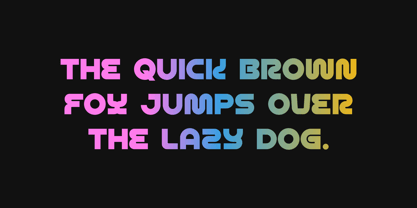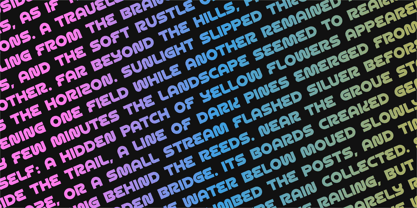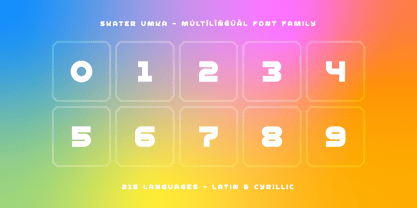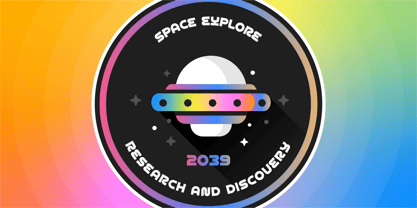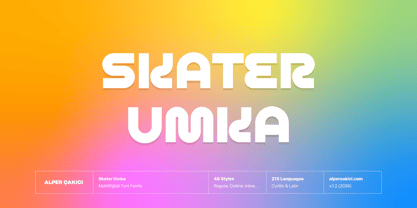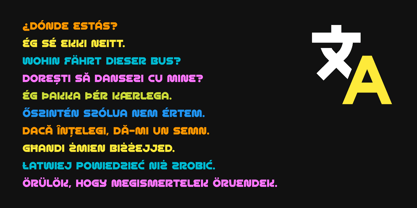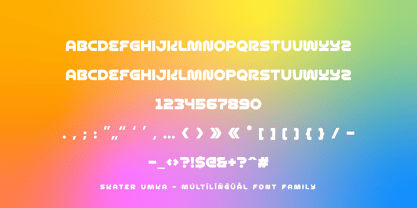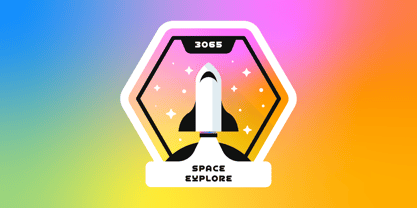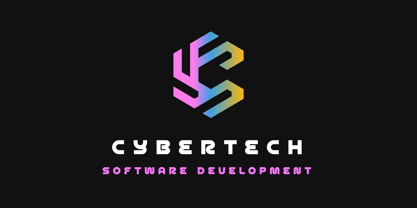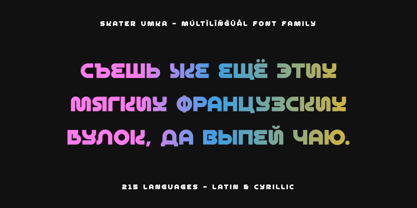
Skater Umka is a geometric maze-inspired display typeface designed to create striking visual pathways within every letterform. Built from interconnected lines, circular structures, and angular turns, it transforms typography into a system of visual movement that feels both futuristic and architectural.
The design explores the relationship between geometry, rhythm, and navigation. Each character is constructed from controlled paths that echo labyrinth patterns, creating a distinctive texture while maintaining strong display readability. The result is a typeface that feels experimental and artistic without sacrificing clarity, making it ideal for branding, posters, editorial headlines, album artwork, packaging, digital media, and contemporary visual identities.
Skater Umka is available in a versatile family of 48 styles that range from clean geometric forms to expressive handcrafted textures. The collection includes Regular, Italic, Inline, Outline, Rimmed, Shadow, Traced, and decorative shadow variants, alongside richly textured styles such as Brush, Pencil, Chalk, Sketchy, Grainy, Gritty, Dry, Rough, Noise, Rusty, Worn, Aged, and Old. Matching italics across many styles provide additional flexibility for dynamic display compositions and branding systems.
Despite its artistic construction, Skater Umka offers extensive language support, covering 215 languages across Latin and Cyrillic writing systems. This broad multilingual coverage makes it suitable for international branding, editorial design, packaging, advertising, and global creative projects.
• 48 font styles
• Geometric maze-inspired display design
• Distinctive labyrinth-like letter construction
• Regular, Italic, Inline, Outline, Rimmed, Shadow, and Traced styles
• Brush, Pencil, Chalk, Sketchy, Grainy, Rough, Noise, Rusty, Worn, and Aged textures
• Matching italic styles across numerous variants
• Latin and Cyrillic language support
• 215 supported languages
• Ideal for branding, posters, editorial design, packaging, album covers, and digital artwork
Skater Umka is a bold display typeface for designers seeking a unique blend of geometric precision, visual complexity, and artistic expression. Its maze-inspired structure creates memorable typography that stands out across both print and digital environments.